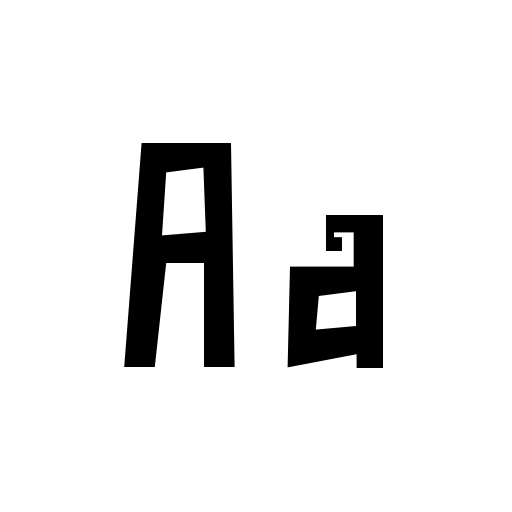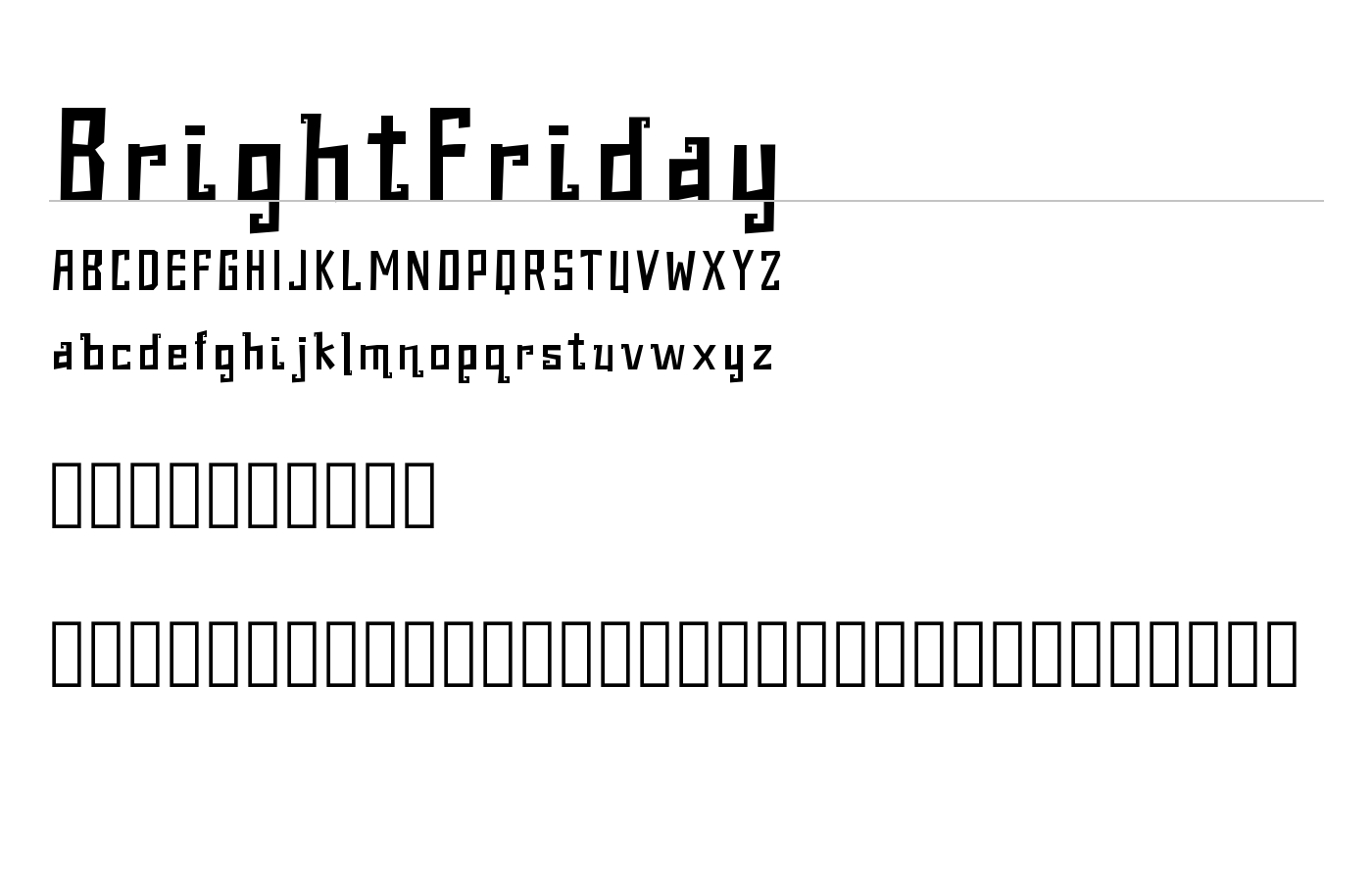
BrightFriday is a distinctive sans serif font with a bold, condensed style and quirky geometric shapes that give it a playful yet edgy personality. Its uneven letter heights and sharp angles create an energetic, modern feel that works well for attention-grabbing headlines, logos, and creative branding projects seeking a unique, unconventional look. This font shines in contexts where character and boldness are needed to stand out.
BrightFriday Font
About BrightFriday Font
| Font family | BrightFriday Font |